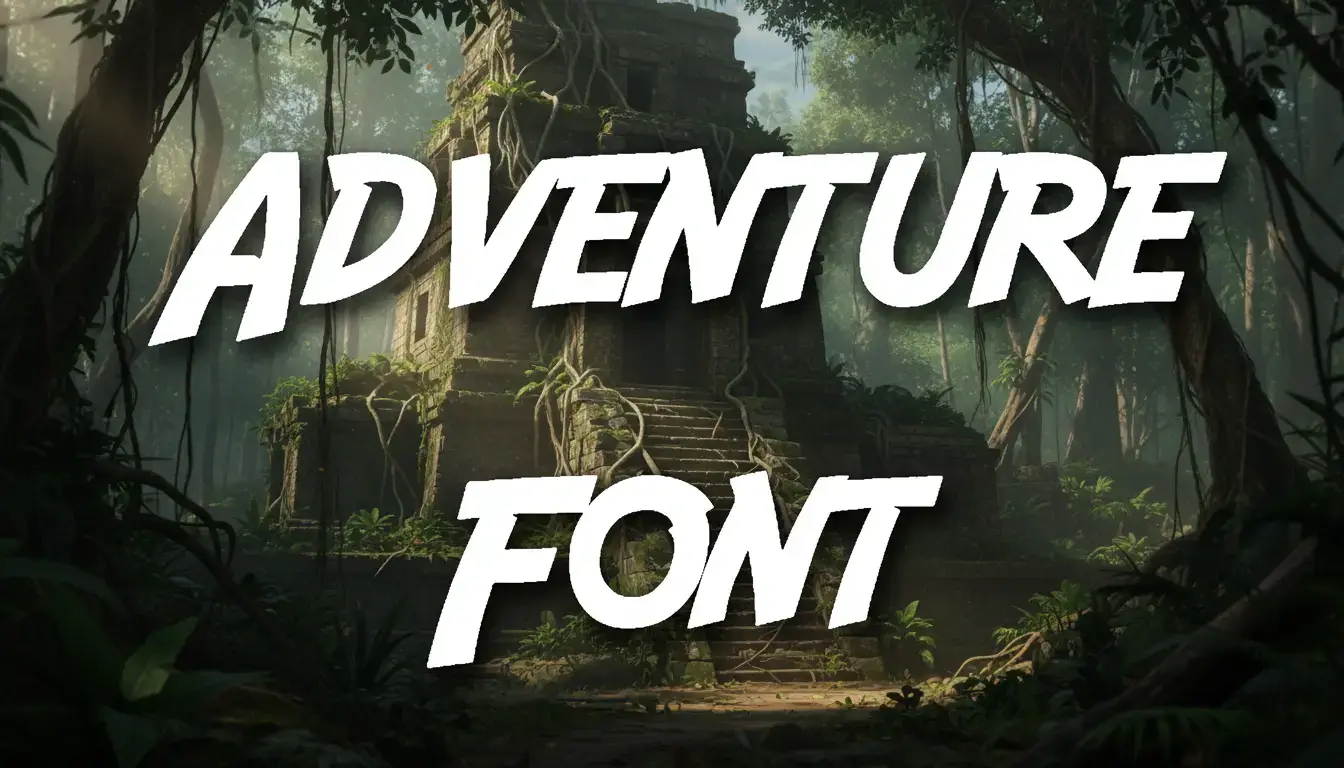
Adventure Font
Adventure is a fancy font designed by Neale Davidson. Bold and full of character, it's built to stand out rather than blend in. You can download it for free and test it with your own words in the preview above.
What You Can Type With Adventure
Adventure covers the full alphabet in upper and lowercase, plus all ten numbers, so you can set names, dates and prices without switching fonts. Everyday marks like &, !, ? and @ are there too. Thanks to its accented letters, it also works for Spanish, French, German, Portuguese and Italian, not just English.
Where Adventure Works Best
Designers usually reach for fonts like Adventure when they're making posters, logos and eye-catching headlines. Use it for one standout word or headline and let simpler fonts handle the rest.
Does Adventure support accented letters?
Yes. Adventure includes the accented letters needed for Spanish, French, German, Portuguese and Italian, so it works for more than just English.